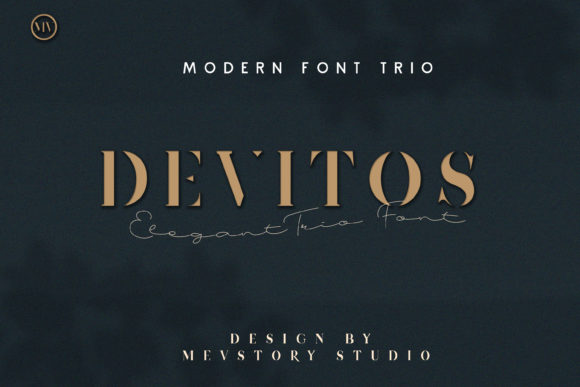
Introducing Devitos Font: The Epitome of Modern Elegance
In the realm of typography, fonts play a pivotal role in conveying messages, evoking emotions, and creating a lasting impression. Among the myriad of fonts available, Devitos stands out as a beacon of modernity, elegance, and creativity. This article aims to provide an in-depth exploration of the Devitos font, a modern, elegant, and creative serif font that has been making waves in the design community.
What is Devitos Font?
Devitos is a modern, elegant, and creative serif font designed to cater to the needs of designers seeking a typeface that exudes sophistication and refinement. Its neat and beautiful arrangement of letters makes it an ideal choice for both formal and non-formal designs. Whether you’re working on a branding project, a website, or a print material, Devitos is poised to elevate your design to new heights.
Key Features of Devitos Font
- Modern and Elegant Design: Devitos boasts a sleek and contemporary design that is sure to captivate your audience. Its elegant features make it perfect for high-end branding, luxury packaging, and sophisticated advertising campaigns.
- Serif Font: As a serif font, Devitos features small lines or flourishes at the ends of its letters, which enhances readability and adds a touch of classic sophistication to your designs.
- Neat and Beautiful Arrangement: The letters in Devitos are carefully crafted to create a harmonious and visually appealing arrangement, making it a joy to use in various design applications.
- Versatility: Devitos is designed to be versatile, allowing you to use it in both formal and non-formal designs. Whether you’re creating a corporate brochure or a social media graphic, Devitos adapts seamlessly to your needs.
Use Cases for Devitos Font
Devitos is an incredibly versatile font that can be used in a wide range of design applications. Here are some use cases where Devitos truly shines:
- Branding and Logo Design: Create a lasting impression with Devitos. Its elegant design makes it perfect for luxury brands, high-end products, and services that require a sophisticated visual identity.
- Web Design: Enhance your website’s typography with Devitos. Its readability and modern aesthetic make it an excellent choice for headings, titles, and body text.
- Print Materials: From brochures and business cards to posters and flyers, Devitos adds a touch of elegance to any print material.
- Advertising and Marketing: Make your ads stand out with Devitos. Its modern and elegant design is sure to capture attention and convey a sense of sophistication.
Benefits of Using Devitos Font
Choosing Devitos for your design projects comes with numerous benefits. Here are some of the advantages of incorporating Devitos into your typography:
- Enhanced Readability: Devitos is designed to be highly readable, ensuring that your message is conveyed clearly and effectively.
- Unique and Memorable: With its elegant and modern design, Devitos helps you create unique and memorable designs that stand out from the crowd.
- Time-Saving: Devitos is a versatile font that can be used across various design applications, saving you time and effort in selecting and pairing fonts.
- Professional and Sophisticated: Devitos adds a professional and sophisticated touch to your designs, making it perfect for high-end projects and clients.
Devitos is a modern, elegant, and creative serif font that offers a world of possibilities for designers. Its neat and beautiful arrangement of letters makes it an outstanding choice for both formal and non-formal designs. With its versatility, readability, and sophisticated design, Devitos is poised to become a staple in your typography arsenal. Whether you’re working on a branding project, website, or print material, Devitos is the perfect choice for creating stunning and memorable designs.